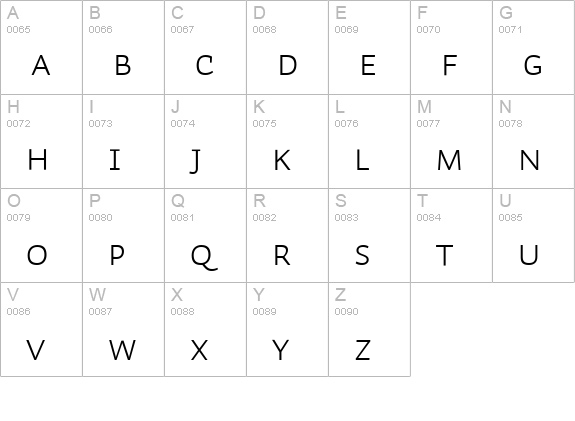
Auto 3 Light SmCp is a refined, elegant variant in the Auto typeface family \xE2\x80\x94 well suited to elegant body text, refined sub-headings, and luxury branding.
Auto 3 Light SmCp font is a sleek and modern typeface that exudes elegance and sophistication. Its clean lines and subtle curves make it a versatile choice for a wide range of design projects, from branding to editorial layouts. The light weight of the font adds a delicate touch to any text, making it perfect for conveying a sense of refinement and style. This font is available for free download at FontsMarket.com, where you can easily access and use it for your personal and commercial projects. With its timeless design and effortless readability, Auto 3 Light SmCp font is sure to elevate the look and feel of any creative endeavor.